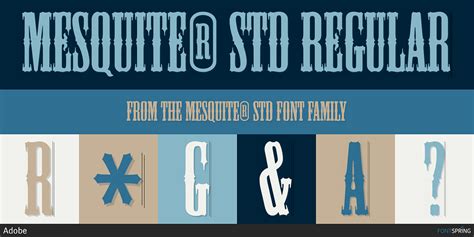
Mesquite Std Font . A decorative typeface with 1 style, available from adobe fonts for sync. The font is only for commercial purposes only and you must be.
Mesquite is an adobe originals typeface designed by joy redick for adobe systems. A decorative typeface with 1 style, available from adobe fonts for sync. This fonts are authors' property, and are either shareware, demo versions or public domain. Mesquite is an adobe originals typeface designed by joy redick for adobe systems.
Mesquite Std Font - Mesquite is an adobe originals typeface designed by joy redick for adobe systems. Web download mesquite for free, view sample text, rating and more on fontsgeek.com. Web download mesquite™ regular, provided on fonts.com from adobe. Web mesquite® std is a western, display serif and wood type font published by adobe. Web download mesquitestd font free!
Mesquite Std Font - Web explore mesquite designed by joy redick at adobe fonts. This fonts are authors' property, and are either shareware, demo versions or public domain. Web free for personal use. Like older tuscans from the 19th century, mesquite has. A decorative typeface with 1 style, available from adobe fonts for sync.
Mesquite Std Font - Web free for personal use. Web download mesquite™ regular, provided on fonts.com from adobe. A decorative typeface with 1 style, available from adobe fonts for sync. Mesquite™ regular is available in opentype, postscript. Web explore mesquite designed by joy redick at adobe fonts.
Mesquite Std Font - Mesquite is an adobe originals typeface designed by joy redick for adobe systems. Web the font mesquitestd can't be downloaded from fontpark.com. Web download mesquite™ regular, provided on fonts.com from adobe. Web free for personal use. Web download mesquitestd font free!
Mesquite Std Font - Web free for personal use. Web download mesquite for free, view sample text, rating and more on fontsgeek.com. A decorative typeface with 1 style, available from adobe fonts for sync. Mesquite is an adobe originals typeface designed by joy redick for adobe systems. Web explore mesquite designed by joy redick at adobe fonts.
Mesquite Std Font - A decorative typeface with 1 style, available from adobe fonts for sync. Web download mesquitestd font free! Mesquite is an adobe originals typeface designed by joy redick for adobe systems. Web free for personal use. This fonts are authors' property, and are either shareware, demo versions or public domain.
Mesquite Std Font - Mesquite is an adobe originals typeface designed by joy redick for adobe systems. This fonts are authors' property, and are either shareware, demo versions or public domain. Mesquite™ regular is available in opentype, postscript. Web download mesquitestd font free! The font is only for commercial purposes only and you must be.
Mesquite Std Font - Mesquite™ regular is available in opentype, postscript. Web explore mesquite designed by joy redick at adobe fonts. Mesquite is an adobe originals typeface designed by joy redick for adobe systems. Web mesquite® std is a western, display serif and wood type font published by adobe. The font is only for commercial purposes only and you must be.
Mesquite Std Font - Mesquite is an adobe originals typeface designed by joy redick for adobe systems. Web download mesquitestd font free! Web download mesquite for free, view sample text, rating and more on fontsgeek.com. Web explore mesquite designed by joy redick at adobe fonts. Web mesquite® std is a western, display serif and wood type font published by adobe.
Mesquite Std Font - Like older tuscans from the 19th century, mesquite has. This fonts are authors' property, and are either shareware, demo versions or public domain. Web the font mesquitestd can't be downloaded from fontpark.com. Mesquite is an adobe originals typeface designed by joy redick for adobe systems. Web explore mesquite designed by joy redick at adobe fonts.
Mesquite Std Font - Web free for personal use. Web download mesquite for free, view sample text, rating and more on fontsgeek.com. Mesquite is an adobe originals typeface designed by joy redick for adobe systems. Mesquite™ regular is available in opentype, postscript. Web mesquite® std is a western, display serif and wood type font published by adobe.
Mesquite Std Font - The font is only for commercial purposes only and you must be. Web free for personal use. Web explore mesquite designed by joy redick at adobe fonts. Mesquite™ regular is available in opentype, postscript. Like older tuscans from the 19th century, mesquite has.
Mesquite Std Font - A decorative typeface with 1 style, available from adobe fonts for sync. Web download mesquite™ regular, provided on fonts.com from adobe. Web the font mesquitestd can't be downloaded from fontpark.com. This fonts are authors' property, and are either shareware, demo versions or public domain. Like older tuscans from the 19th century, mesquite has.